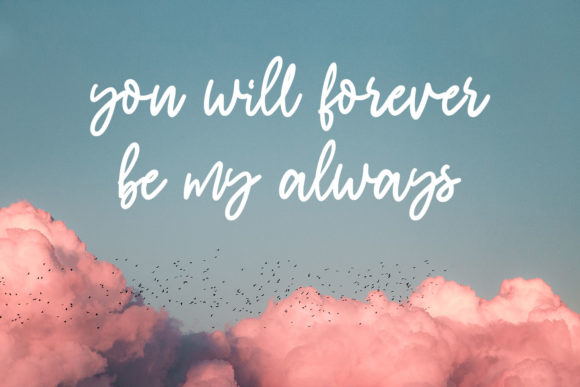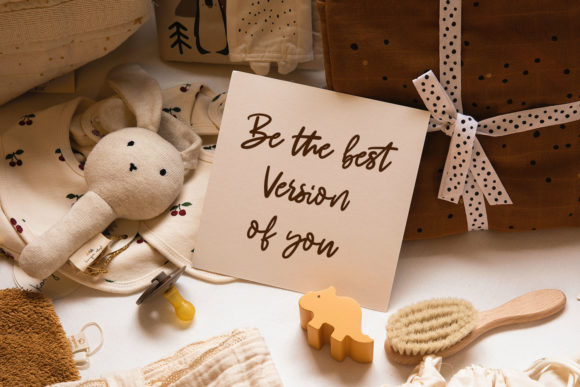
Kallina Dakota Font
db-ku.com - Script & Handwritten -- Kallina Dakota is a sweet and beautiful modern signature script font. Fall in love with its cute and joyful style and use it to create gorgeous wedding invitations, beautiful stationary art, eye-catching social media posts, and much more!